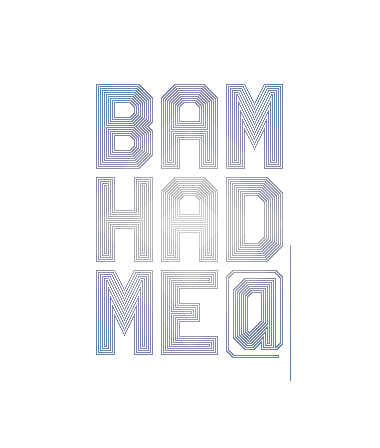
Bevel'sAdvocateMono
by fontcollector
AWSOME
it's like deco-mono :) very fresh.
Oh my goodness! Seriously cool.
Awesome. It generates nice interference patterns at different sizes. With this font you are a superstar too. 10/10
Gorgeous Glyphs!
And I agree with Frodo: it does create a nice Moiré effect at different sizes.
That is beatiful ... a tour de force of the first order. Shame I can only give it a 10.
There are some real gems there such as the * and #
Sorry to sound so harsh but, at last a font that isn't like every other font you've designed.
Are you going to do a non mono spaced font as an option?
If so I'd decrease the SPACE key to make it just over half the letter width. Also have you thought about making M & W should be wider.
Amazing!
Incredible. Agree with p2pnut, the * is top notch. Bravo.
Great! With the big G. And I have a question: This isn't one of these times to make it top pick?
I love it, congrats !
Sweetness. I love the way the the curves look like highlights.
Wowee-Zowee! 10 points.
Cheers, pnut! * and # are my favorites, too.
@djnippa: Yes, many of my fonts are octagonal, though I've tried experimenting with different proportions and weights. As for a non-monospaced variant, I don't think I have the patience to try it. The grid for each glyph is 95 x 57 bricks, by far the largest I've attempted. I actually had to delete at least 20 glyphs, because the editing kept malfunctioning. I even tried splitting it into two fonts, but that did not go well either. So thanks for all your suggestions, but this font will have to remain an only child.
This concept is a winner. I encourage you to develop it further to a small font family. Add more weight and make a heavy and superfat version; or do a narrow as well as extended version. You can also experiment with slab serif, or outline varieties and see if they work. Good Luck.
@Frodo7: I really appreciate your encouragement; however, please see my response to djnippa. I don't know how many technical problems you experienced while creating your wonderful Escher fonts, but I spent countless hours trying to improve this font's existing glyphs, only to find that the FontStructor simply refused to save the changes. Eventually, I was forced to release the font as it now stands to save my sanity. While I'm pleased with the result, I'm unwilling to put myself through more of that torture!
You can read about my struggles with FS when I worked on Hommage à Escher and Gestalt (fragment). I had my share of frustrations, but so did others you've listed above, I'm pretty sure. There was a time when I felt I just want to quit and never to return to FS. I'm glad I persevered. NO PAIN, NO GAIN.
Great one :D Some of the glyphs reminds me of stargaze ^^